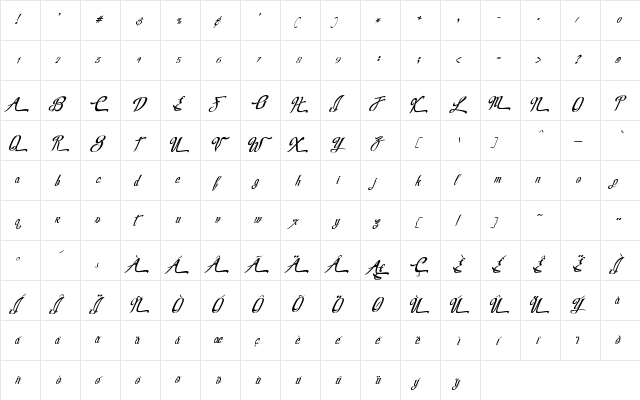
RealPrizesVeryItalic Regular
| Foundry | Xerographer Fonts |
Design Context for RealPrizesVeryItalic Typeface
RealPrizesVeryItalic is a composed and adaptable typeface that performs quietly and consistently across a wide range of design contexts. The dynamic lean of this cut emphasises speed and emphasis in any layout.
Pro Tip: Try RealPrizesVeryItalic for annotation and caption copy alongside an upright companion — the contrast in angle creates a dynamic but ordered typographic system.